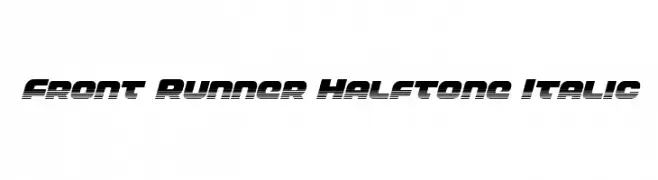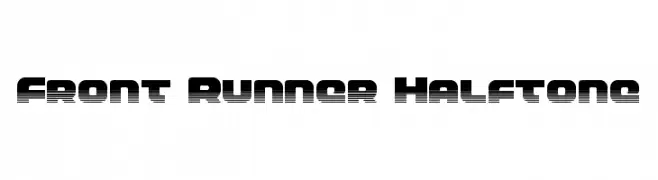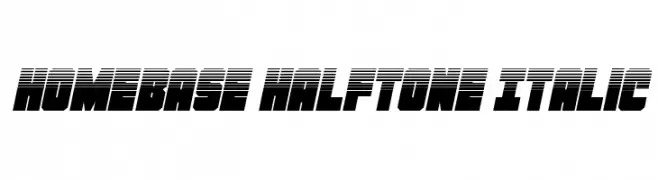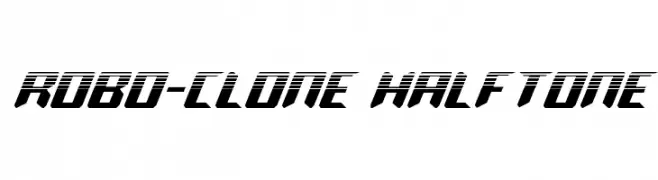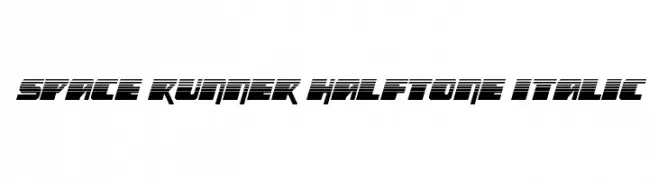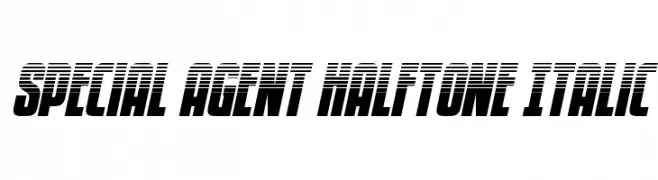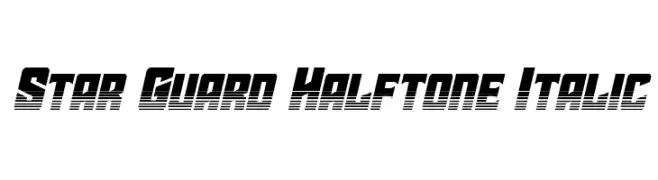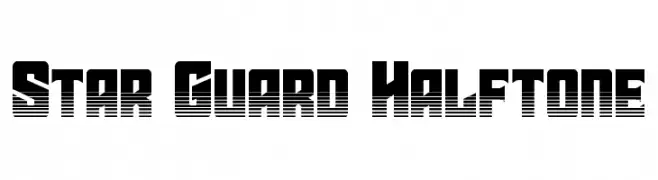
• Star Guard Halftone
A bold, futuristic font with a halftone effect and geometric design.
• Star Guard Halftone Italic
A bold, italicized font with a halftone pattern, offering a dynamic and futuristic look.
• Homebase Halftone Italic
A bold, italicized font with a halftone effect, ideal for dynamic designs.
• Homebase Halftone
A bold, geometric font with a halftone effect, ideal for retro or tech-inspired designs.
• Robo-Clone Halftone
A futuristic, angular font with a halftone pattern and slanted, dynamic letterforms.
• Space Runner Halftone
A futuristic, bold font with a halftone effect and digital aesthetic.
• Space Runner Halftone Italic
A bold, italicized font with a futuristic halftone design.
• Front Runner Halftone Italic
A bold, italicized font with a halftone effect, ideal for dynamic and modern designs.
• Front Runner Halftone
A bold, futuristic font with a halftone effect and geometric structure.
• Special Agent Halftone Italic
A bold, italic font with a halftone effect and modern, dynamic style.